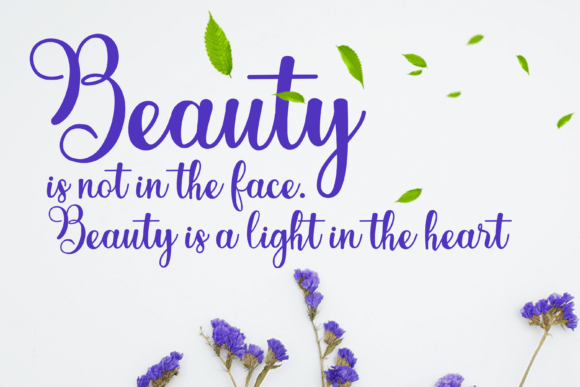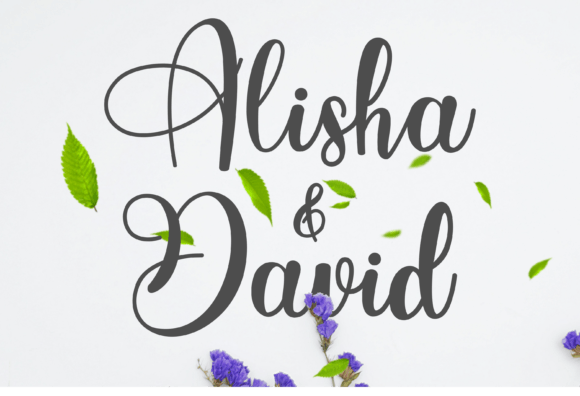
Introduction to Merlandia Font
As a designer, have you ever stumbled upon a font that makes your creative project feel complete? For me, that moment came when I discovered the Merlandia Font. Its elegant touch and unique style captivated me, and I knew I had to share it with fellow designers.
With its high-quality design, the Merlandia Font is perfect for any creative project that requires a touch of sophistication. Whether you’re working on a logo, brochure, or social media graphic, this font is sure to elevate your design. Plus, with its transparent background, you can easily use it as a design resource without any hassle.
Key Features of Merlandia Font
- High-quality, unique design perfect for creative projects
- Transparent background, allowing for seamless integration with images and other design elements
- Optimized for high-resolution displays, ensuring crisp and clear typography at 300 DPI
- Designed to be highly legible, making it suitable for a wide range of creative projects, from logos to typography-based designs
Honest Review: Merlandia Font
As a designer, I’m always on the lookout for high-quality fonts that can elevate my creative projects. The Merlandia Font caught my eye, and I was excited to give it a try. With its free download option, it’s definitely a great design resource for those on a budget.
One of the standout features of the Merlandia Font is its versatility. It’s suitable for a wide range of creative projects, from logos to digital artwork. I was impressed by the font’s unique aesthetic, which adds a touch of sophistication to any design. ✨
- Easy to use: The font is highly customizable, making it simple to adjust to your design needs.
- Transparent background: This feature allows for seamless integration with other design elements.
However, I did encounter a few limitations. The font is not suitable for small text sizes, and the character set is limited. ⚠️
Overall, I’m impressed with the Merlandia Font. Its unique design and high-quality features make it a great addition to any designer’s toolkit. While it may not be perfect, it’s definitely worth considering for your next creative project.
Use Merlandia Font to create visually appealing designs, such as logos, brochures, and business cards. Experiment with different font sizes and colors to get the most out of this versatile font.
Merlandia Font is commonly used in creative projects, such as graphic design, branding, and digital art. Its high-quality and creative possibilities make it a valuable design resource for designers and artists.